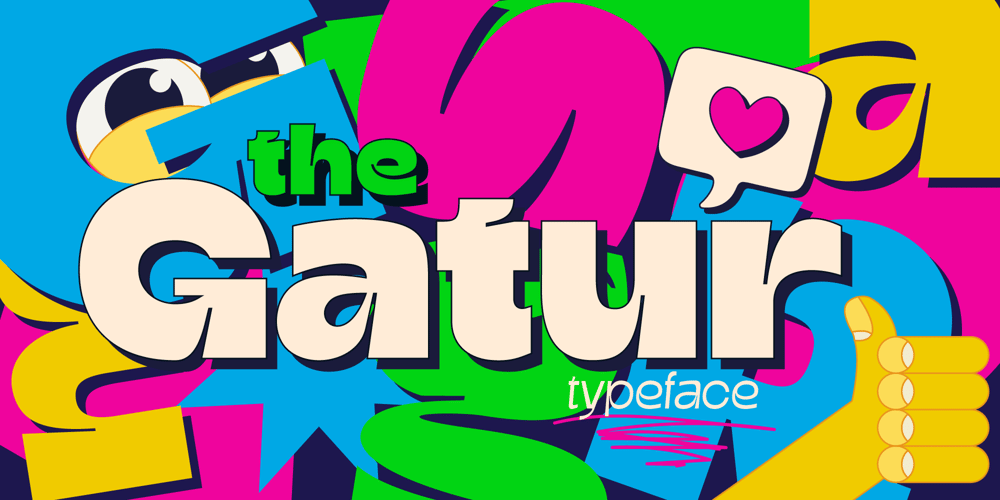
Gatur Font Family was designed by Tatiana Yunina and published by Mira. Gatur contains 8 styles and family package options. The Gator font offers you a versatile tool for creating new designs with its bright and expressive black version, perfectly suited for signage, headlines, and packaging. Its attractive, vibrant appearance ensures that the design grabs attention and makes a lasting impression. Additionally, the lightweight version provides a subtle yet refined touch, allowing you to create contrast and add elegance to compositions. With Gator, you can easily infuse your work with individuality and uniqueness, making it an excellent choice for any project.